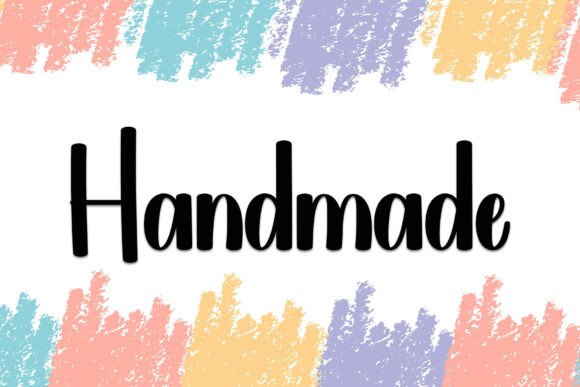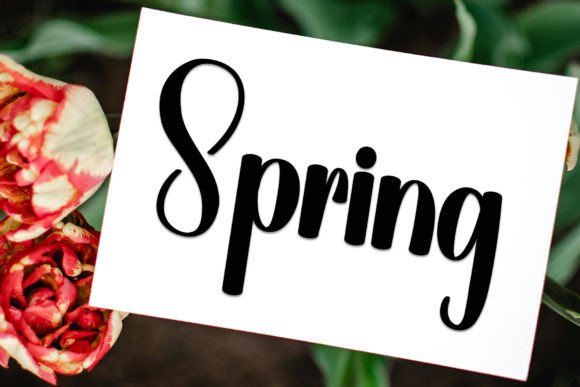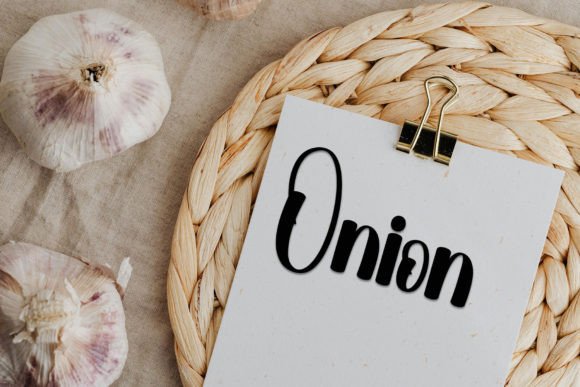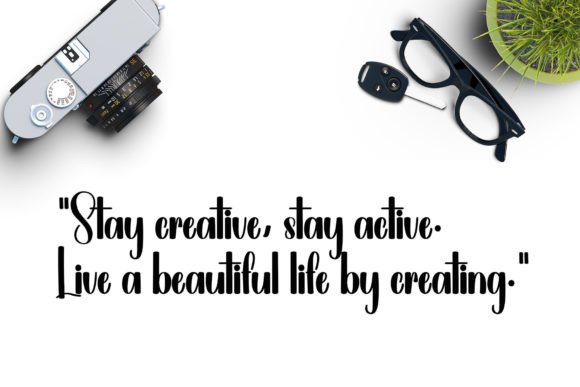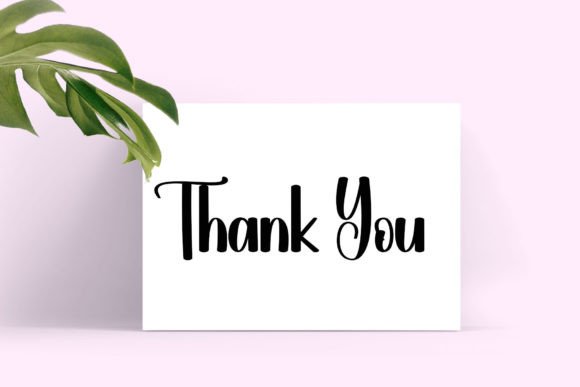
Dental Font: Elevate Your Designs with Elegance and Sophistication
In the world of typography, fonts play a crucial role in conveying the tone and personality of a design. For designers and crafters seeking to add a touch of elegance and class to their projects, Dental Font is an excellent choice. This trendy handwritten font boasts a contemporary atmosphere and impeccable form, drawing inspiration from timeless classic calligraphy.
The Inspiration Behind Dental Font
Dental Font’s design is rooted in the rich history of calligraphy, where the art of beautiful handwriting has been a cornerstone of elegance and sophistication. The font’s creator aimed to capture the essence of classic calligraphy and infuse it with a modern twist, resulting in a unique and versatile typeface. The outcome is a font that exudes refinement and poise, perfect for designs that require a high level of sophistication.
Key Features of Dental Font
- Trendy and Contemporary: Dental Font’s modern design ensures that your projects look fresh and up-to-date, making it ideal for designers who want to stay ahead of the curve.
- Handwritten Elegance: The font’s handwritten nature adds a personal touch to your designs, conveying a sense of warmth and approachability.
- Impeccable Form: Dental Font’s precise and clean lines ensure that it remains legible and visually appealing, even at smaller font sizes.
- Timeless Classic Calligraphy Inspiration: The font’s inspiration from classic calligraphy provides a sense of tradition and heritage, making it perfect for designs that require a touch of nostalgia.
Use Cases for Dental Font
Dental Font’s versatility makes it suitable for a wide range of design projects, including:
- Logos and Branding: Create a lasting impression with a logo that exudes elegance and sophistication.
- Wedding and Event Invitations: Add a touch of romance and refinement to your invitations and stationery.
- Packaging Design: Elevate your product packaging with a font that conveys luxury and high-end quality.
- Advertising and Marketing Materials: Stand out from the competition with a font that commands attention and respect.
Tips for Using Dental Font Effectively
To get the most out of Dental Font, consider the following tips:
- Pair with Neutral Backgrounds: Allow Dental Font to take center stage by pairing it with neutral backgrounds that won’t compete for attention.
- Experiment with Font Sizes: Dental Font’s legibility and versatility make it suitable for use at various font sizes, from headings to body text.
- Add Decorative Elements: Enhance your design with decorative elements, such as swashes or flourishes, to add an extra touch of elegance.
Dental Font is a stunning handwritten font that brings a touch of elegance and sophistication to any design project. Its unique blend of modern and classic elements makes it an excellent choice for designers and crafters seeking to create refined and visually appealing designs. With its versatility and impeccable form, Dental Font is sure to become a staple in your typography collection.